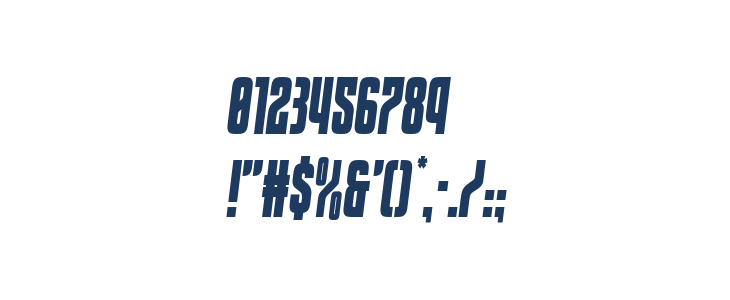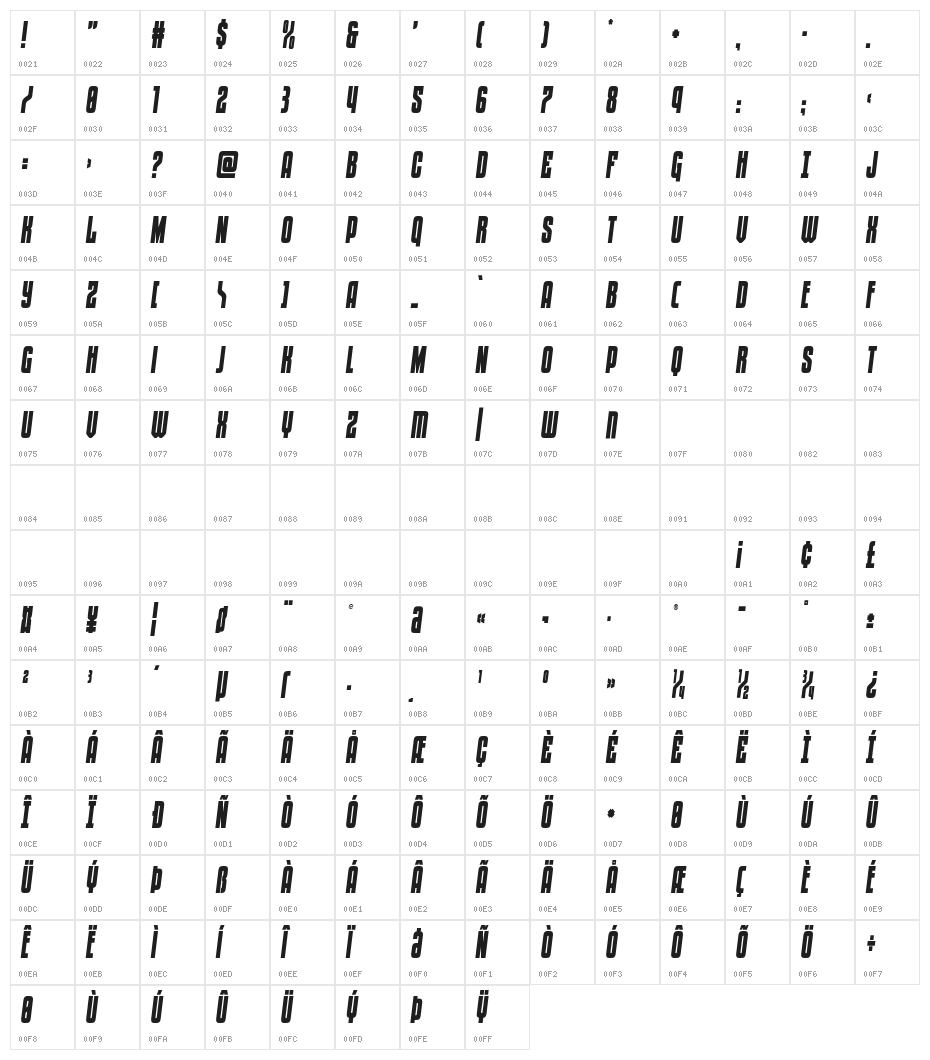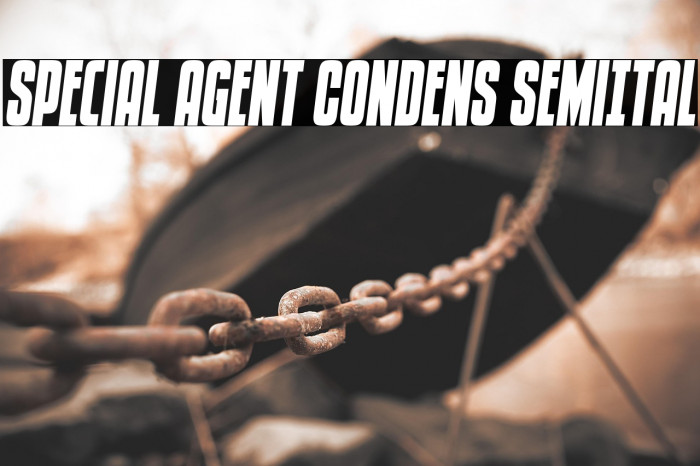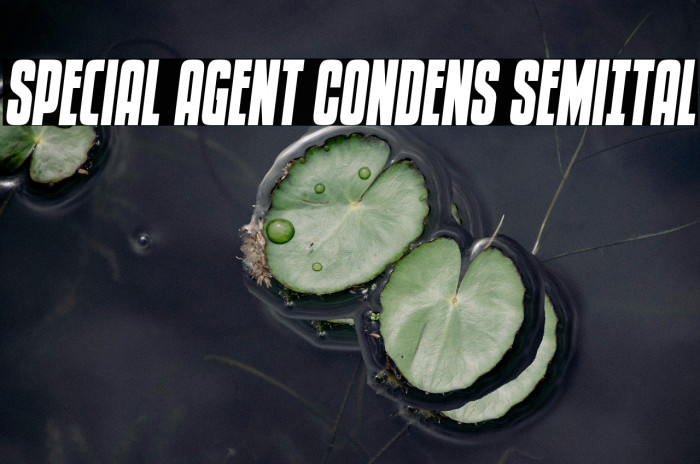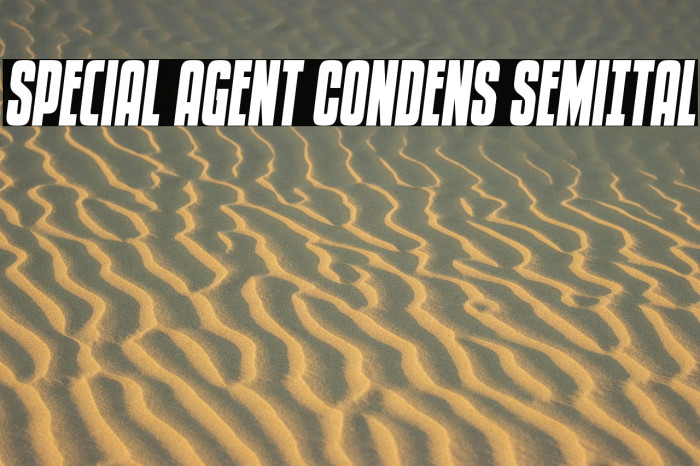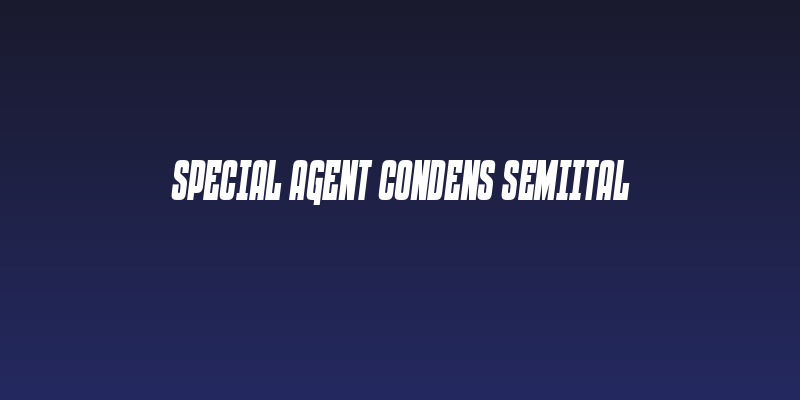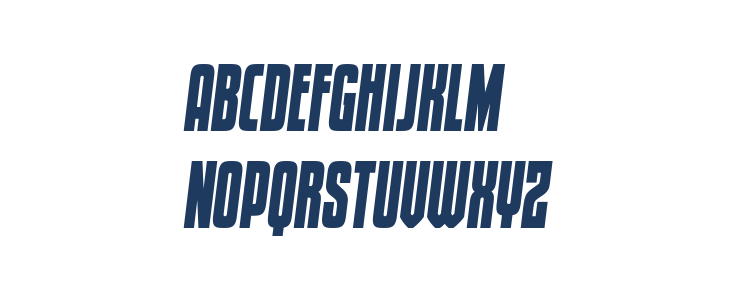
Special Agent Condens SemiItal Font
Special Agent Condens SemiItal Description
This font exhibits a bold and dynamic style with a condensed width, giving it a strong and impactful presence. The characters are slightly italicized, adding a sense of motion and urgency. The uppercase letters are particularly striking, with sharp angles and a modern aesthetic. The numbers and special characters maintain the same boldness and style, ensuring consistency across all elements. This font is designed to grab attention and convey a sense of strength and authority.